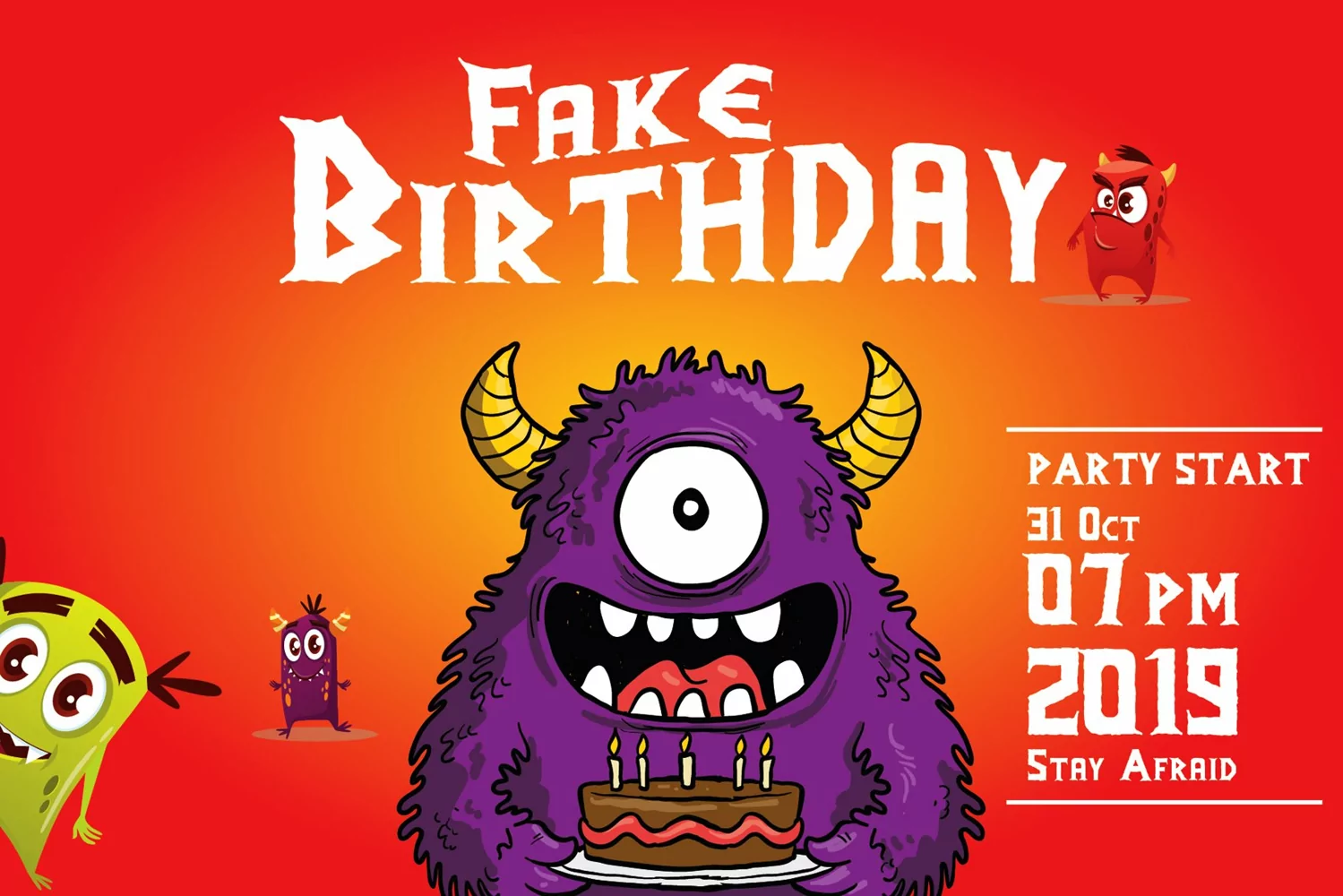
-- Bold / Strong / Decorative --Infamous is a decorative font. Inspired by a retro thriller movie poster and i try to combine it with a modern concept. it's perfect for you to show your design or product in professional way.
USEInfamous works great in any branding, logos, magazines, films, poster, flyer, sign board.